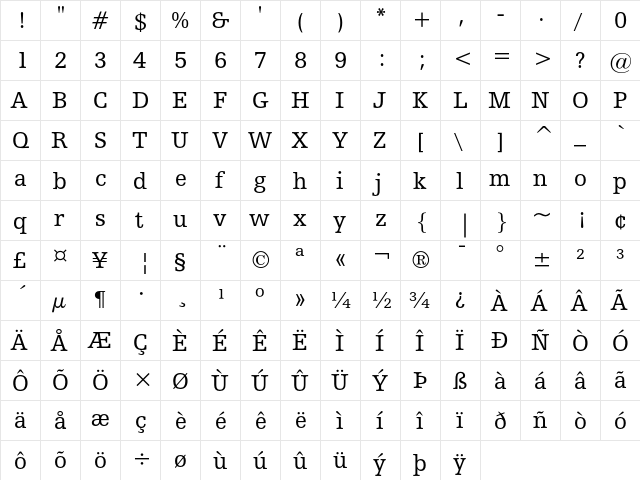
Humanist Slabserif 712 Regular
Design Context for Humanist Slabserif 712 Typeface
Humanist Slabserif 712 features prominent, blocky serifs that give it a confident, grounded presence — equally at home in editorial settings and bold branding work.
Works well in editorial design, news publishing, impactful branding, and poster typography.
Pro Tip: Try Humanist Slabserif 712 set tight in headlines for a classic editorial feel. Its slab serifs create strong horizontal rhythm that anchors a page layout.